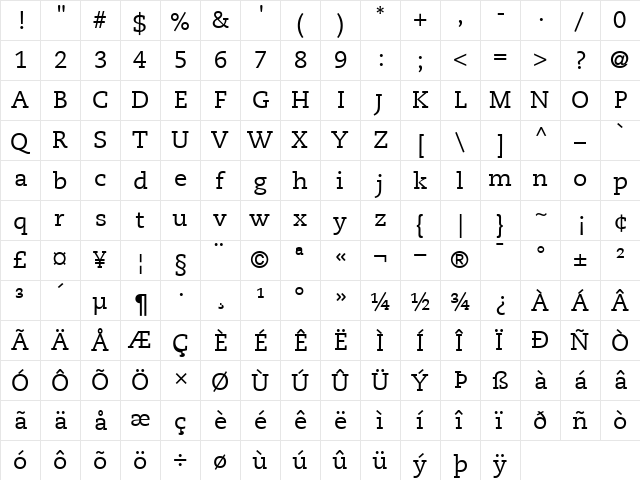
PMNCaecilia55Roman Roman Font Preview
PMNCaecilia55Roman Roman
PMNCaecilia55Roman Roman Font Details
Design Context for PMNCaecilia55Roman Typeface
PMNCaecilia55Roman offers clean, dependable letterforms without strong stylistic allegiance, making it a practical choice for designers who need flexibility.